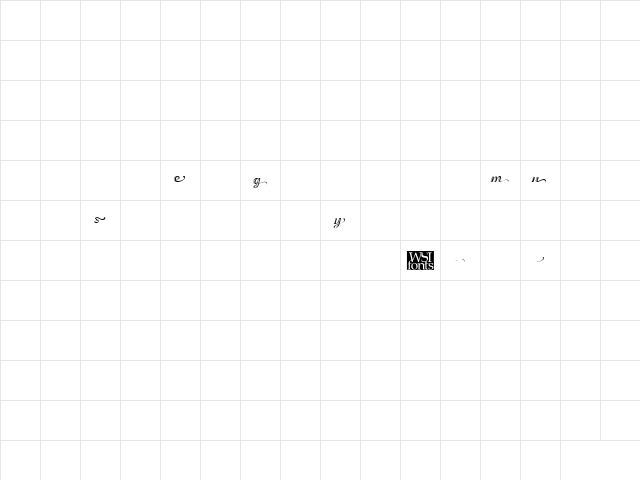
WinstonScriptAlternates Regular
Design Context for WinstonScriptAlternates
WinstonScriptAlternates flows with the natural rhythm of handwritten lettering, making it ideal for designs that call for warmth and personal expression.
Font Pairing: Combine WinstonScriptAlternates with a simple geometric sans for maximum contrast - the tension between flowing curves and clean structure is a classic typographic pairing.
Pro Tip: Use WinstonScriptAlternates for short runs of text - names, titles, or taglines. Extended body copy in script faces tires the eye quickly.